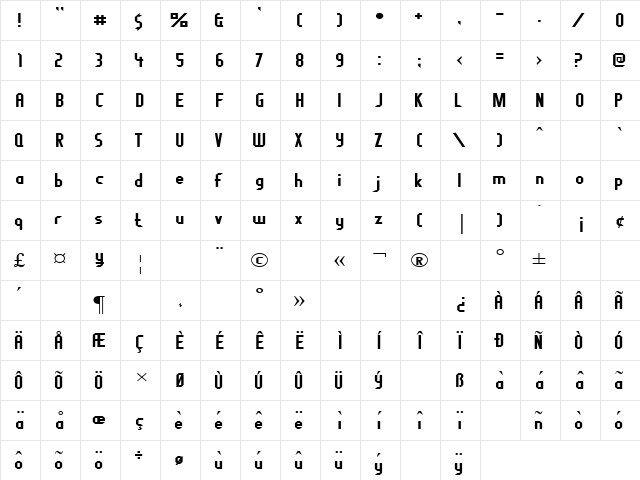
Fragile Bombers Regular
Design Context for Fragile Bombers Typeface
Fragile Bombers offers clean, dependable letterforms without strong stylistic allegiance, making it a practical choice for designers who need flexibility.
Pro Tip: Use Fragile Bombers in both headline and body roles to test its range before committing to a single application.